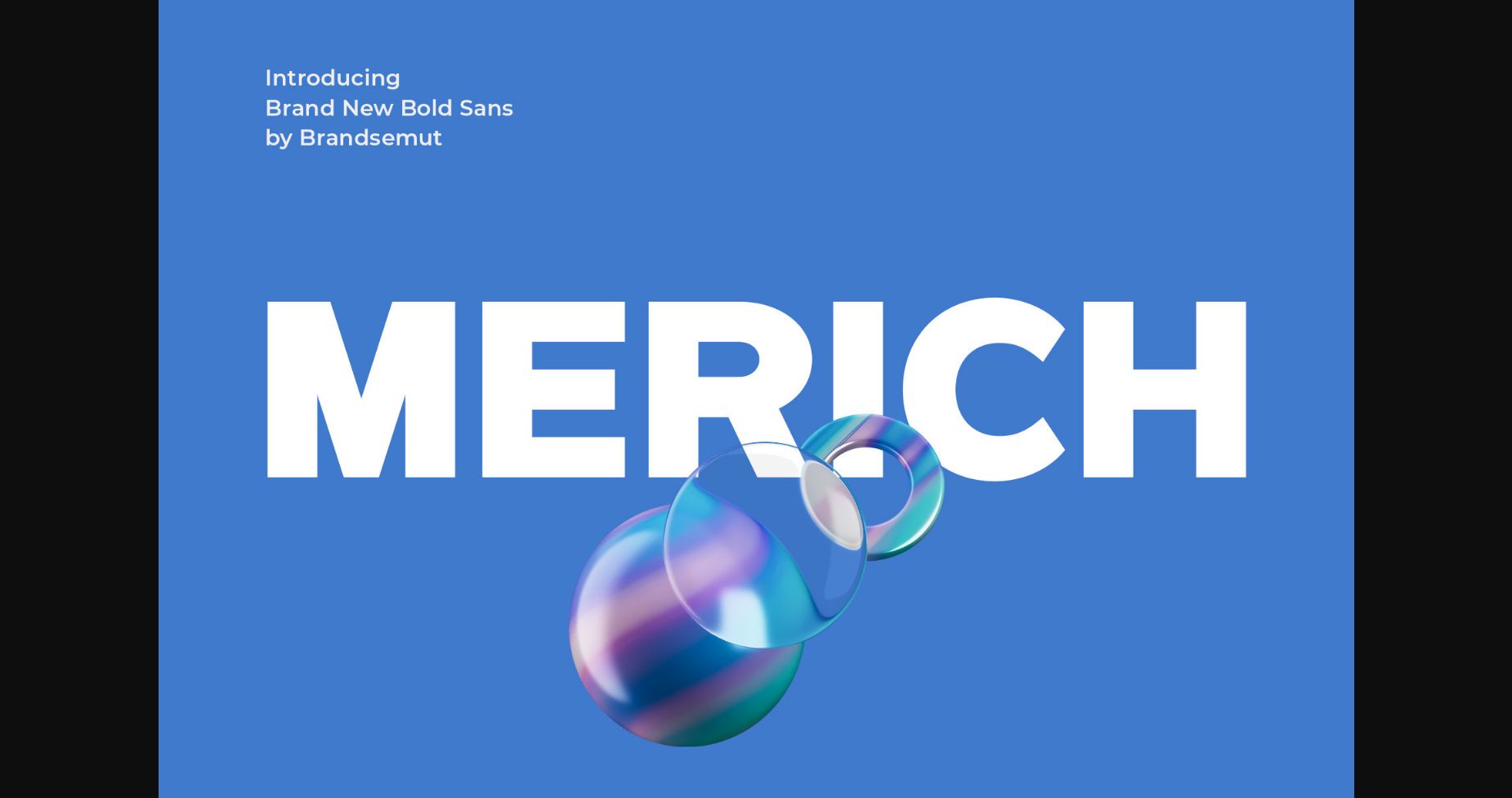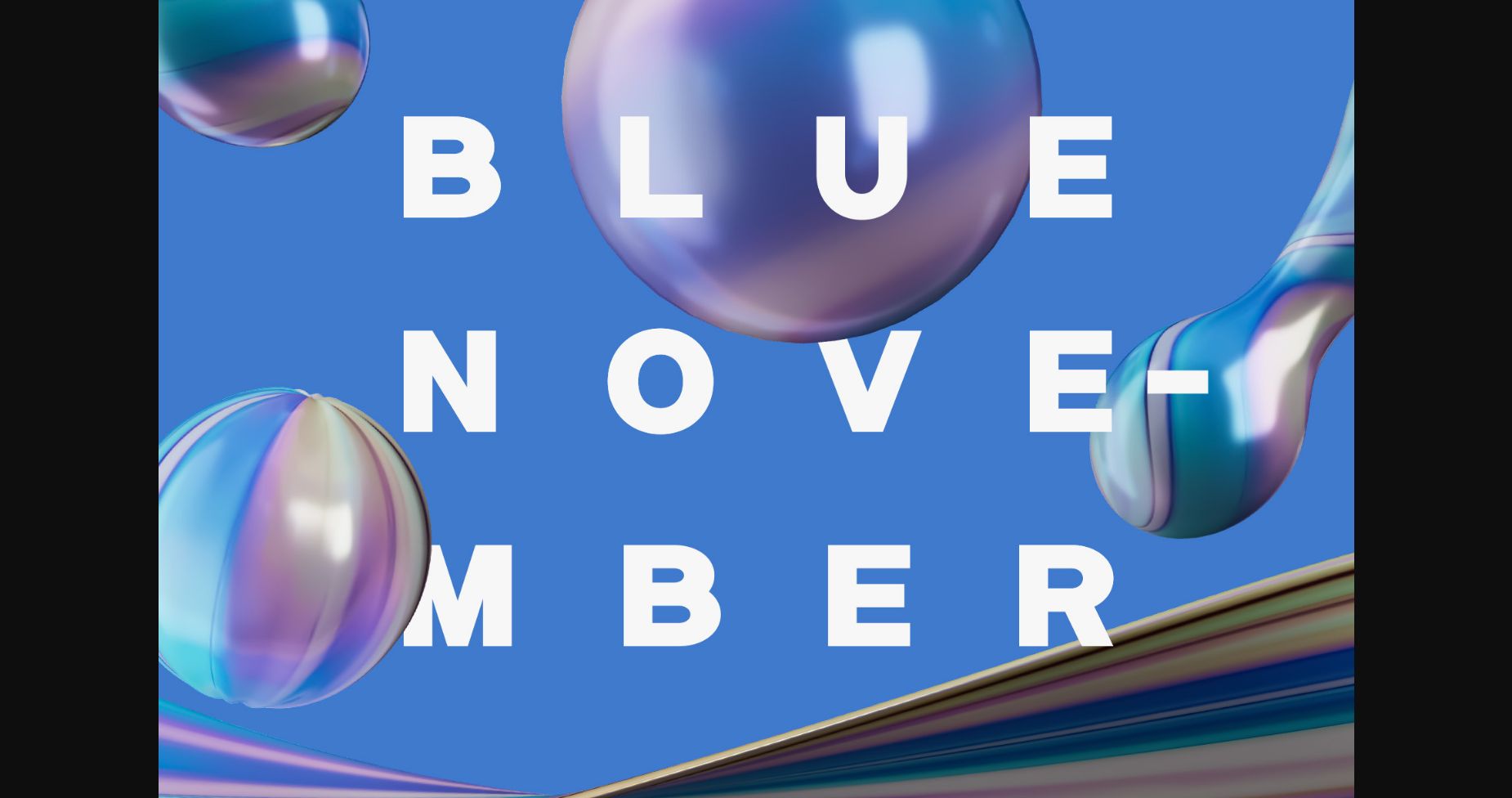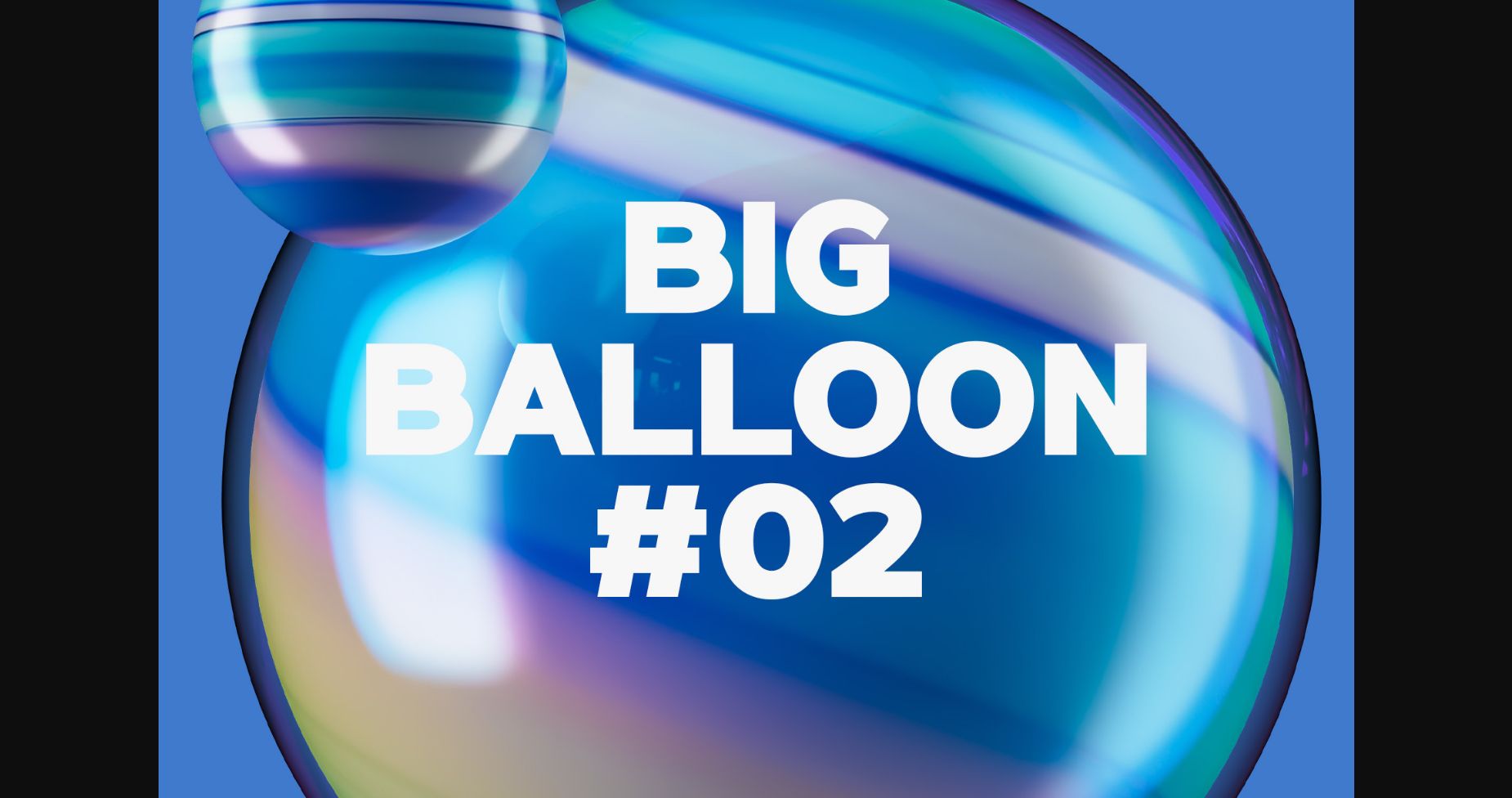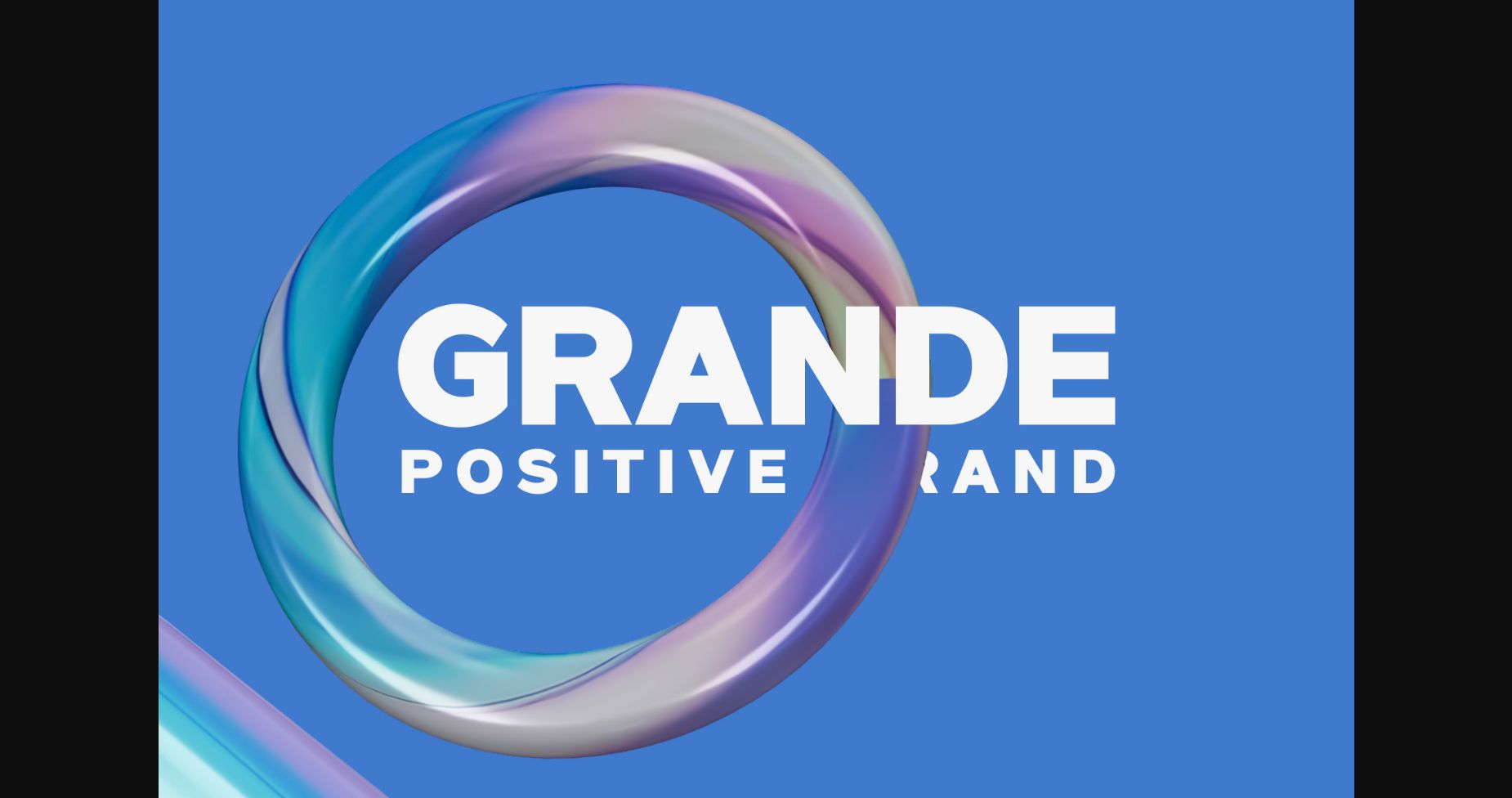
About Merich Font
Merich is a modern sans-serif font with a clean and minimalist design. Its simple letterforms and uniform strokes make it easy to read, while its slightly rounded edges give it a friendly and approachable feel. Merich is perfect for designs that require a contemporary and professional look, such as branding, advertising, and digital media.